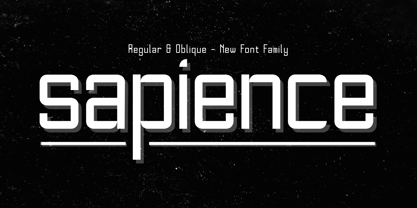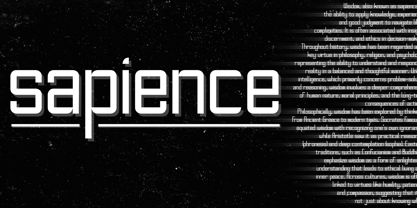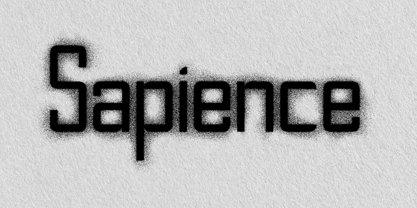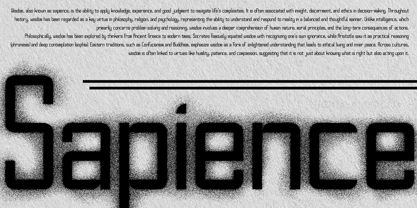
Sapience
by RedWaffles
The Sapience Font Family was designed by Berke Zeytünlüoğlu and published by RedWaffles. Sapience contains 2 styles and family package options. More about this family
Sapience is a font designed to maintain simplicity while keeping a unique style. Being designed on paper first and converted into a digital font afterwards, it was designed with practicality and versatility in mind. Being able to host many different use cases, whether it be minimal, calm designs where its simple mixture of round and sharp angles along with its relaxed weight can stand out, or in clutter where it can give a breath of fresh air.
Designers: Berke Zeytünlüoğlu
Foundry: RedWaffles